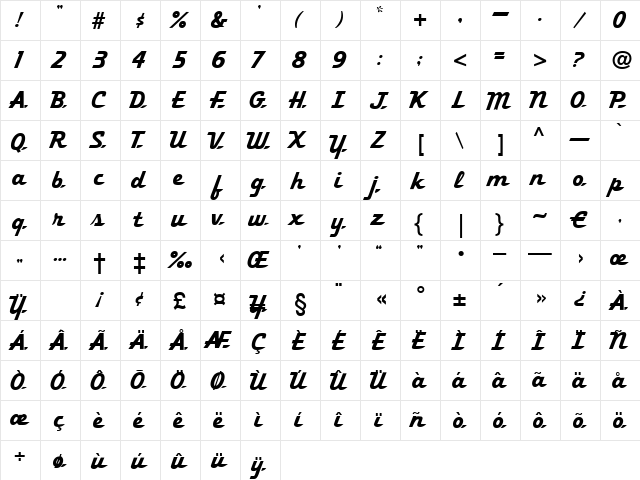
Police Regular
Design Context for Police Typeface
Police is a composed and adaptable typeface that performs quietly and consistently across a wide range of design contexts.